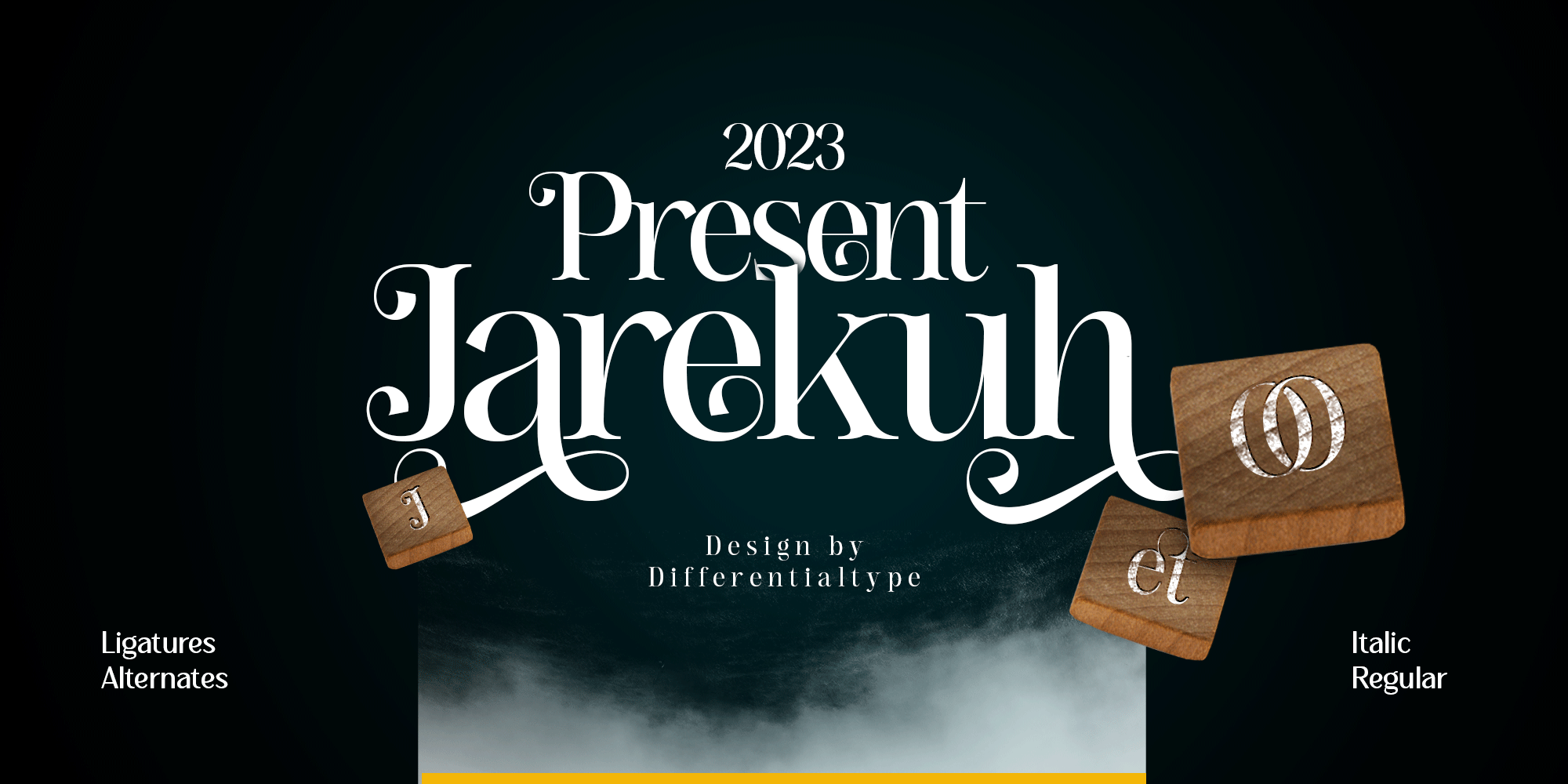
Jarekuh Font is perfect for contemporary art installations, experimental design projects, avant-garde music album covers, innovative tech startup branding, abstract digital art exhibitions, creative agency portfolios, modern architectural presentations, cutting-edge fashion campaigns, artistic performance promotions, and progressive cultural institution identities. Its unique experimental character makes it ideal for projects requiring artistic innovation and creative boundary-pushing aesthetics.
What makes Jarekuh Font exciting is its bold exploration of typographic possibilities with unconventional letterforms and innovative design approaches that challenge traditional typography rules while creating distinctive visual experiences and memorable artistic impact. The font features experimental stroke patterns, creative character constructions, and artistic flourishes that create avant-garde atmosphere and contemporary appeal. Its innovative personality brings artistic edge to contemporary designs while maintaining the readability essential for creative communications and artistic presentations. The carefully crafted experimental elements ensure visual intrigue while preserving the distinctive character that embodies the essence of artistic innovation and creative excellence.
Jarekuh Font comes in multiple experimental variations including Regular, Bold, Light, Abstract, and Artistic styles. Each family member explores different creative possibilities while maintaining the distinctive innovative character. The complete font family includes alternate characters, artistic symbols, and experimental decorative elements that provide comprehensive tools for creating unique creative design experiences and authentic artistic brand storytelling.
Whether you're developing artistic brands, experimental projects, or innovative creative solutions, Jarekuh Font Free Download provides the distinctive creativity needed to communicate with art-conscious audiences and creative professionals who appreciate typographic innovation and artistic boundary-pushing. The font's experimental appeal resonates with artists, designers, and creative innovators seeking authentic artistic credibility and contemporary sophistication. Its comprehensive character set includes artistic symbols and creative marks, making it perfect for creating complete experimental brand systems and memorable artistic storytelling across diverse creative applications and innovative design projects that celebrate typographic artistry and creative expression excellence.